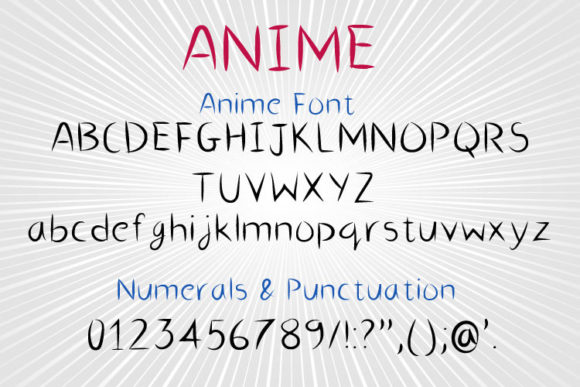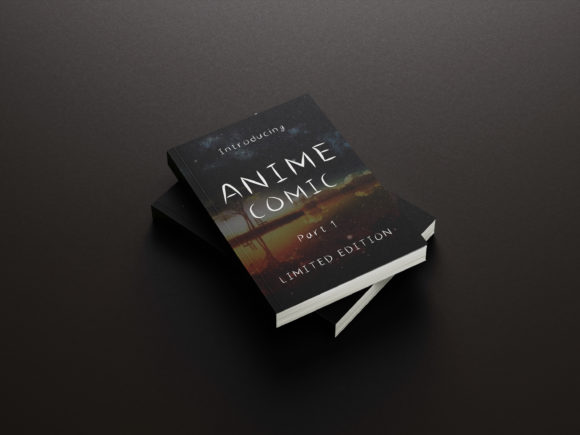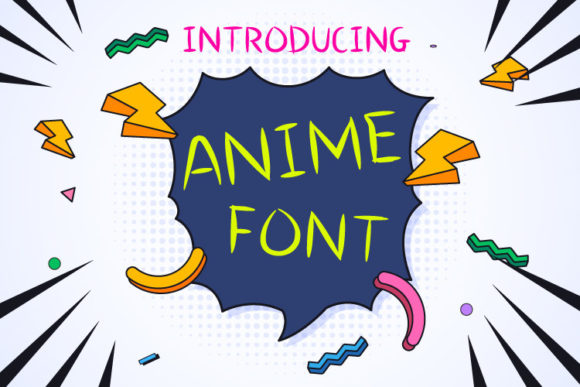
The Ultimate Guide to Anime Font: Elevate Your Designs with this Cool and Clean Display Font
I’ll never forget the design project that made me fall in love with the Anime font. I was working on a branding project for a trendy new coffee shop, and I needed a font that would capture the fun and youthful vibe of their brand. After hours of scrolling through font websites, I stumbled upon Anime font, and it was love at first sight! The clean lines, modern aesthetic, and versatility of this font made it the perfect fit for my project. In this article, I’ll share my experience with Anime font, its features, and how to make the most of it in your designs.
- ✅ Clean and modern aesthetic: Anime font has a sleek and contemporary look that’s perfect for product packaging, branding projects, magazine covers, and social media.
- ✅ Versatile: This font can be used for a wide range of design projects, from wedding invitations to business cards.
- ✅ Easy to read: The font’s clean lines and simple design make it easy to read, even at small sizes.
- ✅ OpenType features: Anime font comes with a range of OpenType features, including glyphs and stylistic alternates, that allow you to customize your text.
- 🤔 Limited use for body text: While Anime font is perfect for headlines and titles, it may not be the best choice for body text due to its clean and modern aesthetic.
- 🤔 May not work well with complex backgrounds: The font’s clean design may get lost on complex or busy backgrounds.
The Anime font was designed by a team of designers who wanted to create a font that would capture the modern and youthful spirit of anime and manga. The designers drew inspiration from traditional Japanese typography and modern digital design trends to create a font that’s both clean and edgy.
| Font Name | Anime Font |
| Author | Shruti Singh |
| What is Anime font? | Anime font is a cool and clean display font that’s perfect for product packaging, branding projects, magazine covers, social media, and more. |